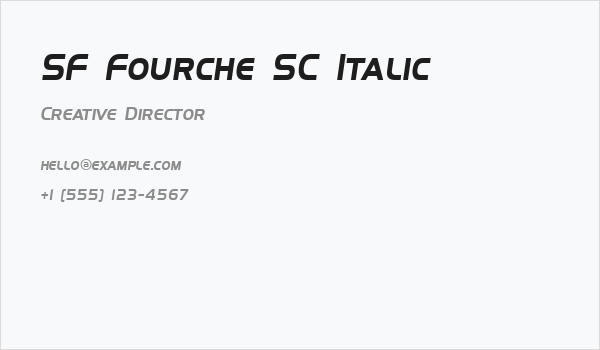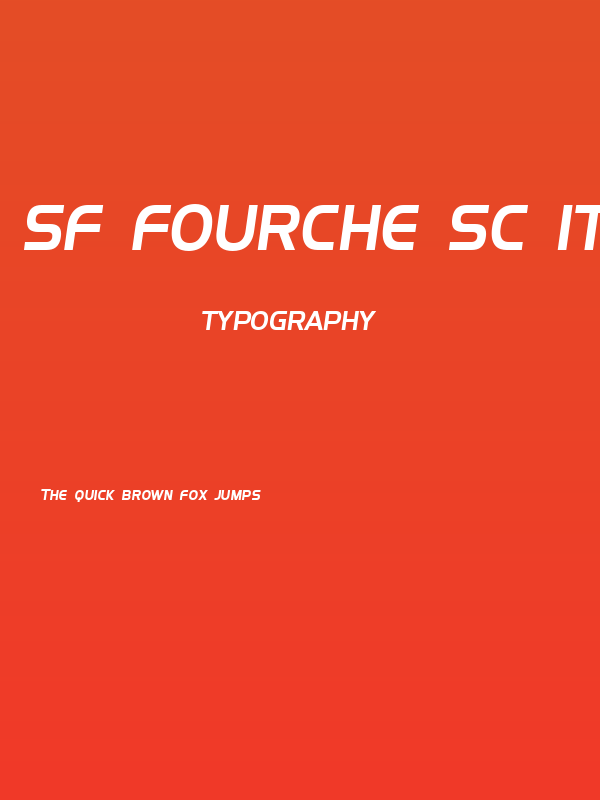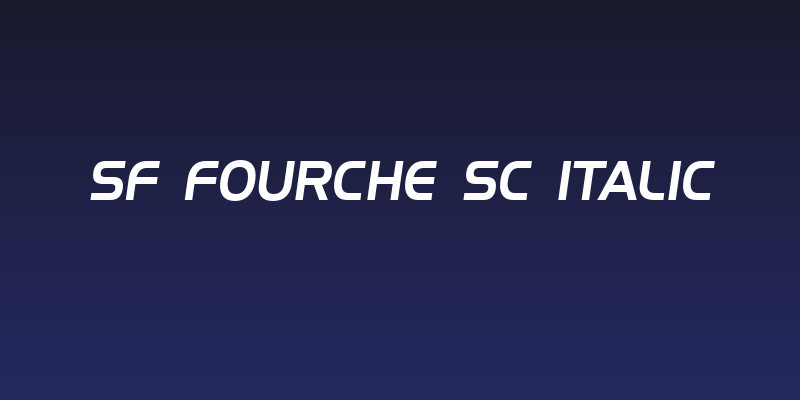
SF Fourche SC Italic Font
SF Fourche SC Italic Description
This font features a sleek and modern design with a distinct italic slant, giving it a dynamic and forward-moving appearance. The characters are crafted with precision, showcasing a sans-serif style that emphasizes clarity and readability. The strokes are consistent in thickness, providing a uniform look across all characters. The font includes a full set of uppercase and lowercase letters, numbers, and a variety of special characters, making it versatile for various design needs. Its clean lines and contemporary aesthetic make it suitable for projects that require a professional and polished look.
| Use Case | Headlines, Logos, Digital Media |
| Proposed Projects | Ideal for branding, advertising, digital media, and editorial design where a modern and professional appearance is desired. |